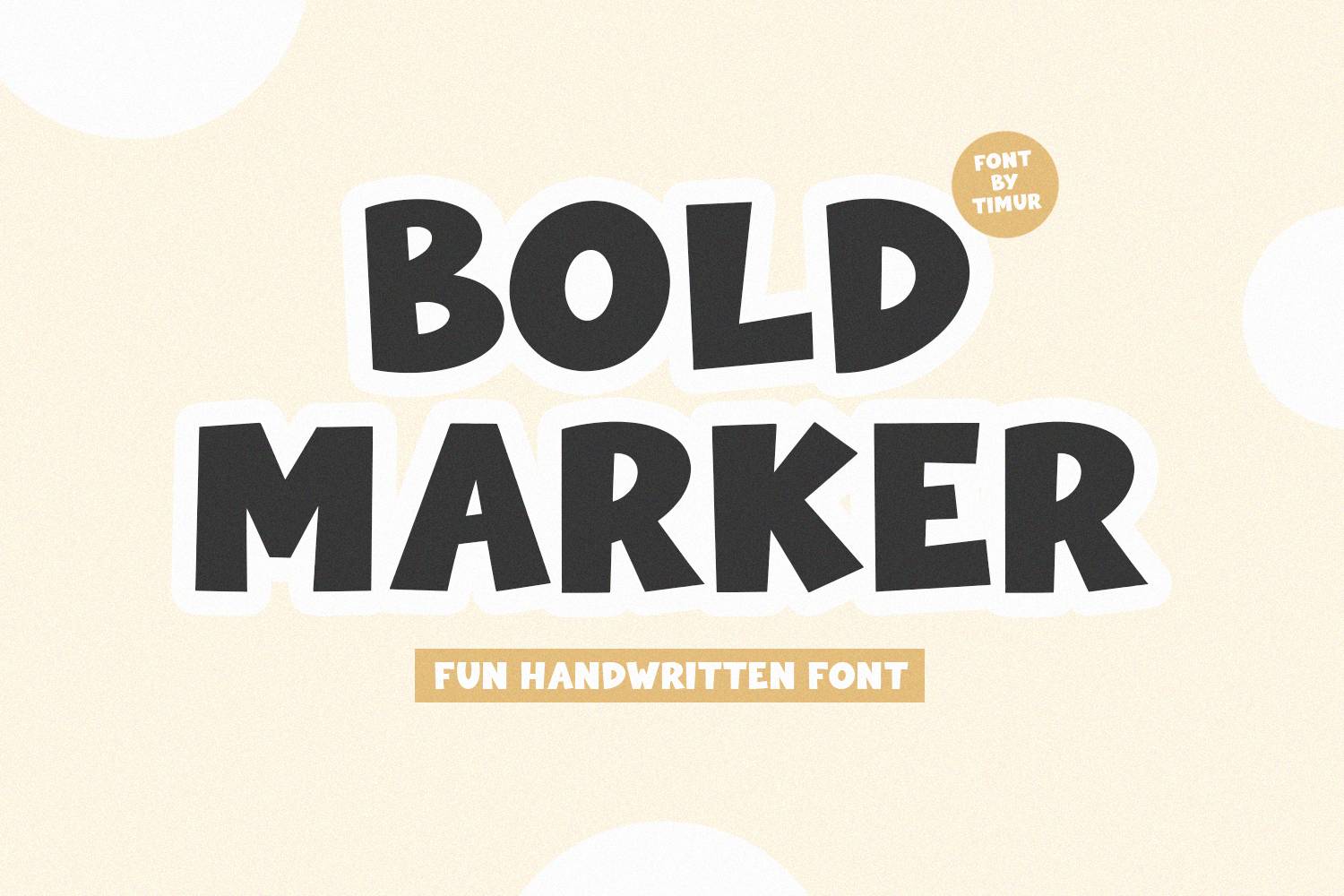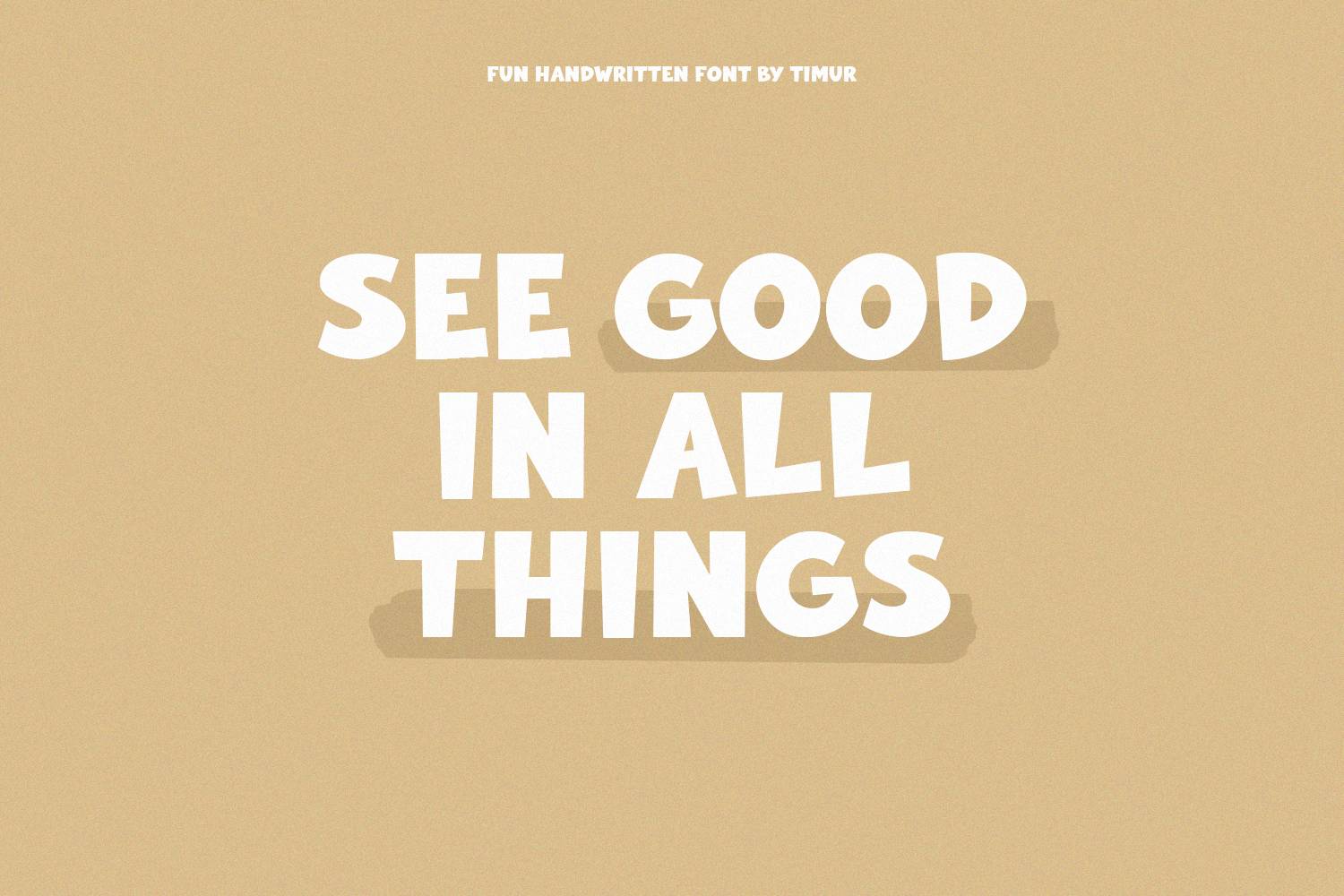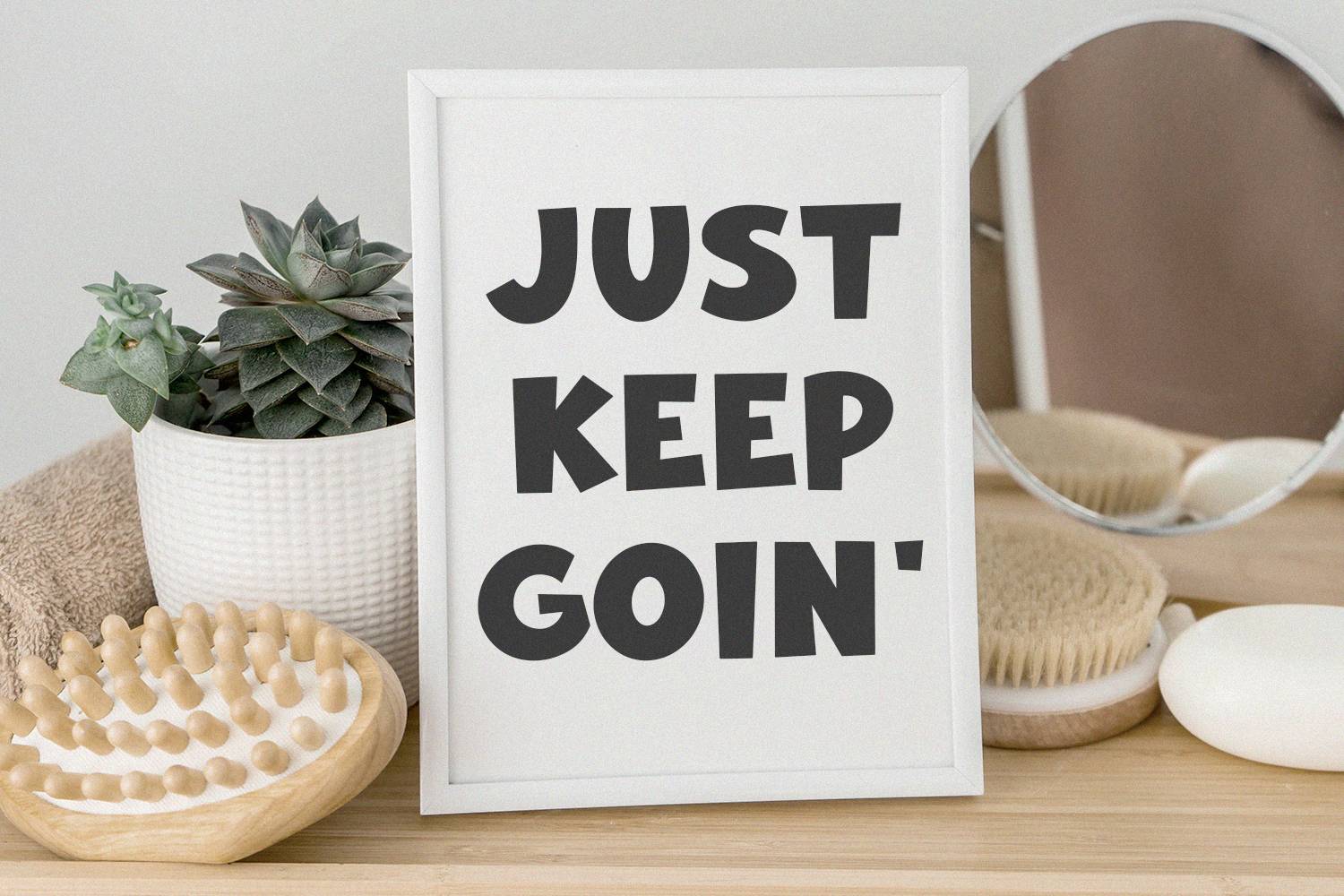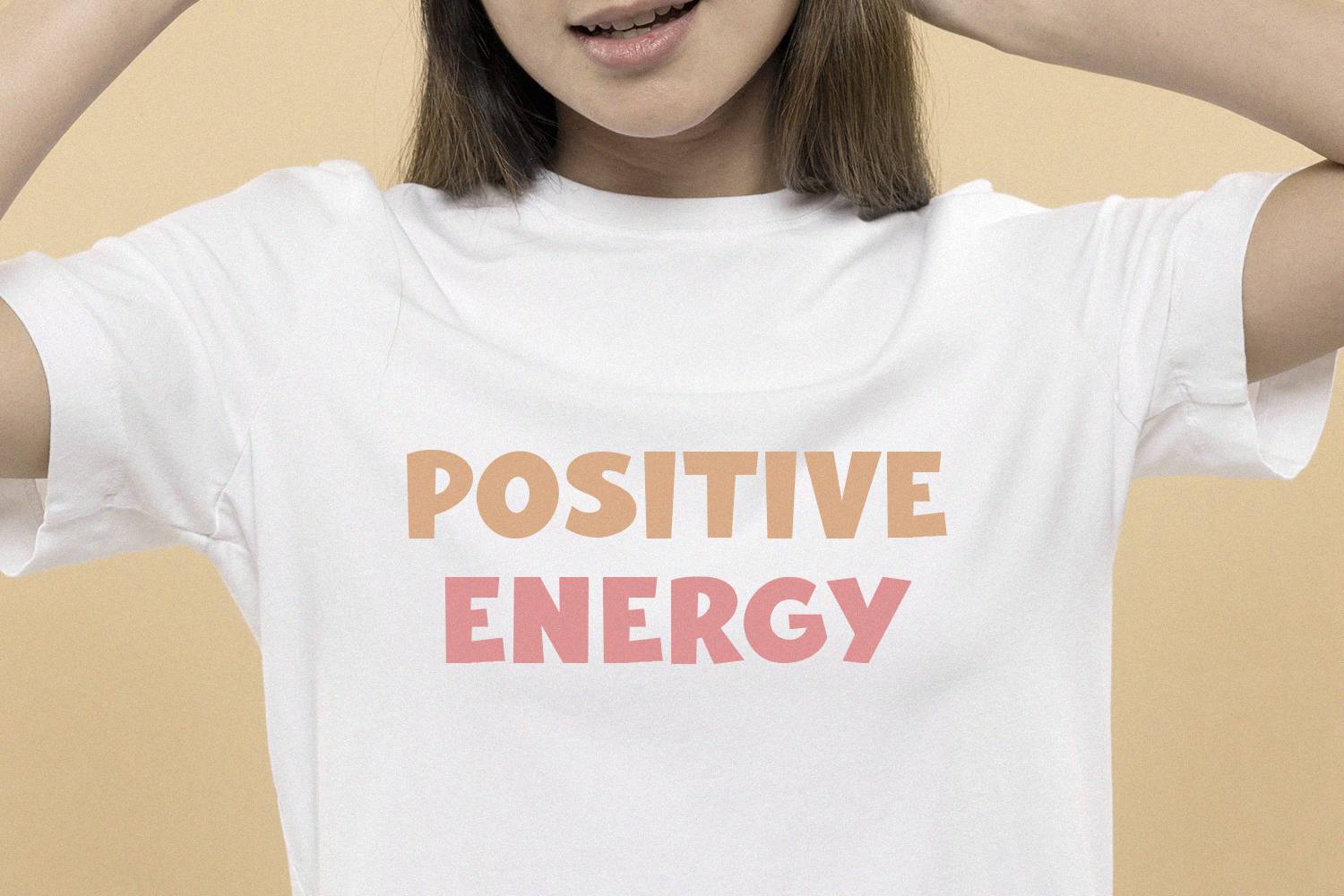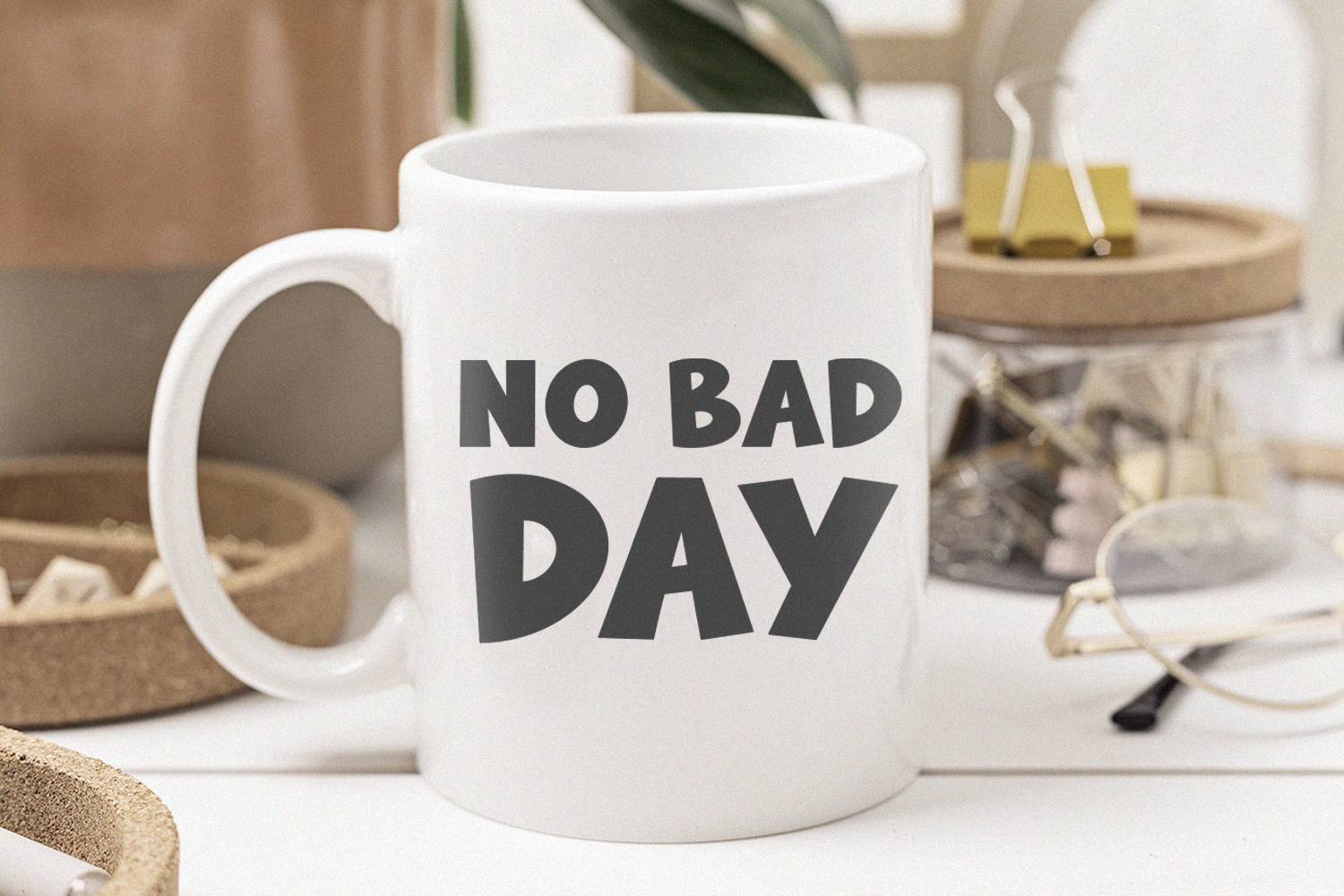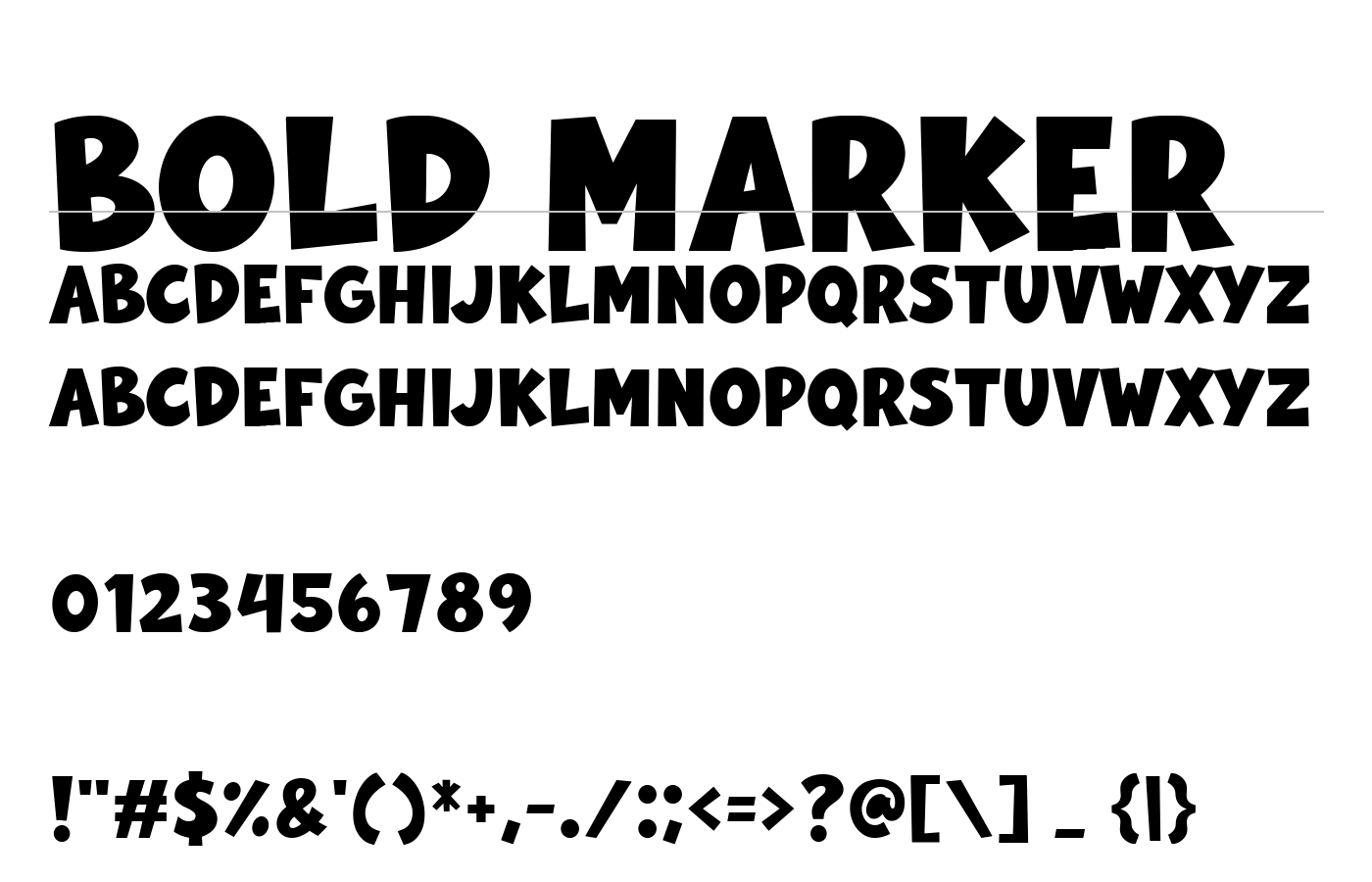
Bold Marker Font is a playful and bold sans serif typeface that mimics the look of thick, hand-drawn marker strokes. With its chunky, uneven shapes and high x-height, it exudes a casual, friendly personality perfect for fun, eye-catching designs like posters, children’s books, and informal branding. Its strong presence and clear readability make it ideal for headlines and display use where a lively, approachable tone is desired.
Bold Marker Font